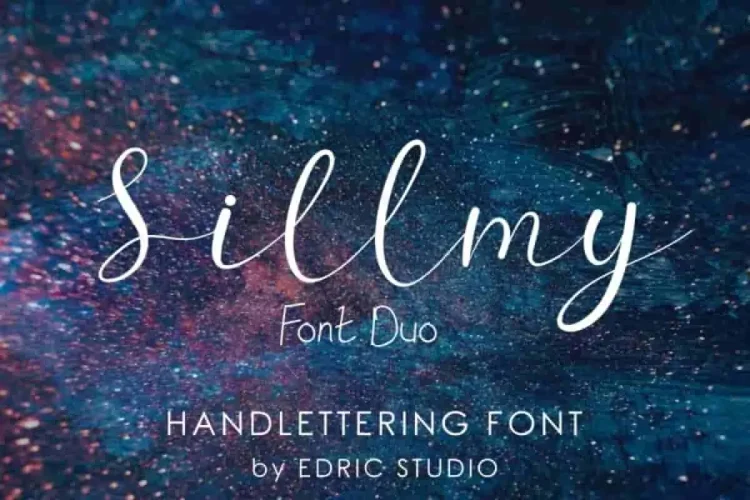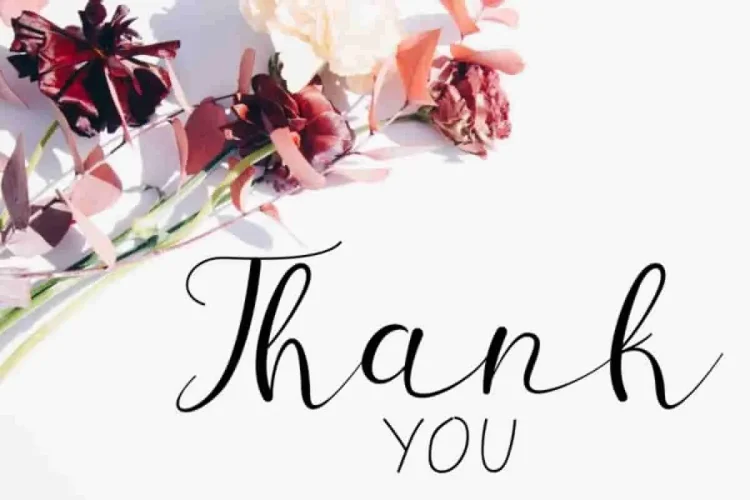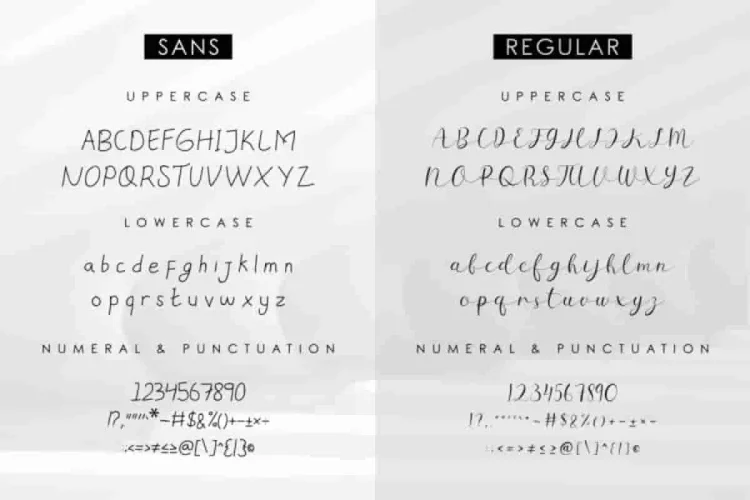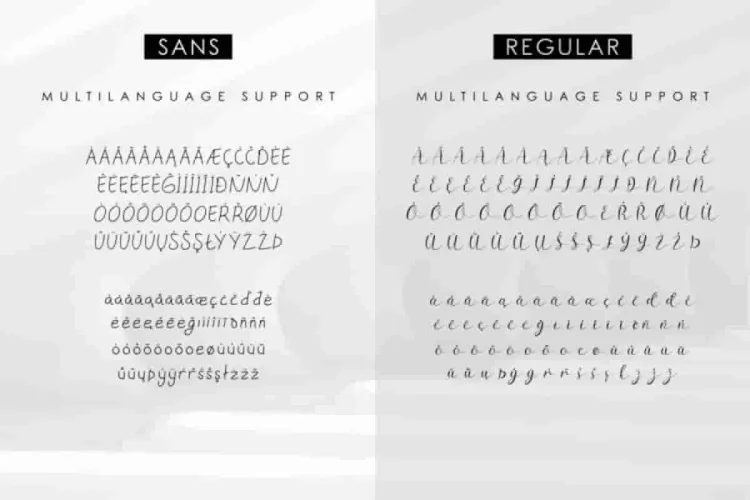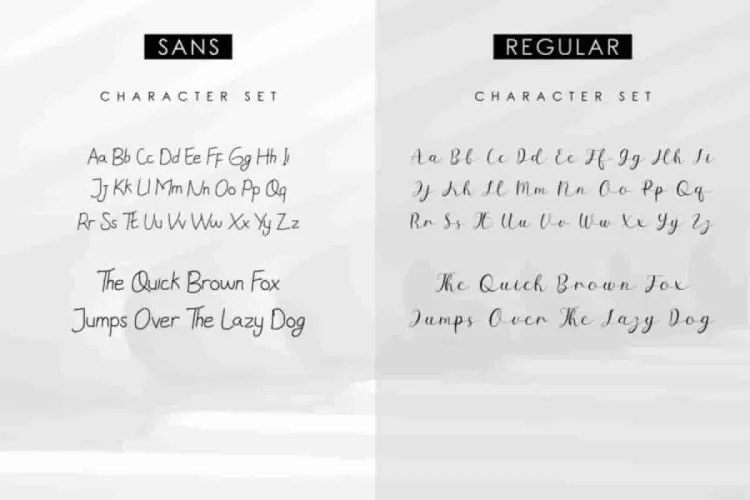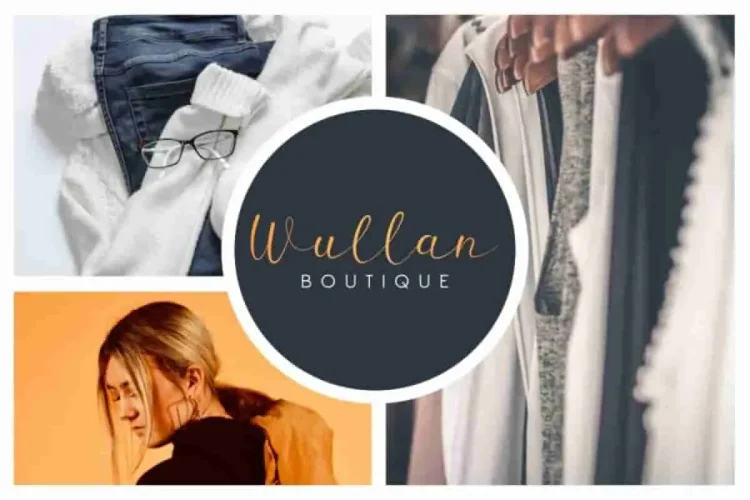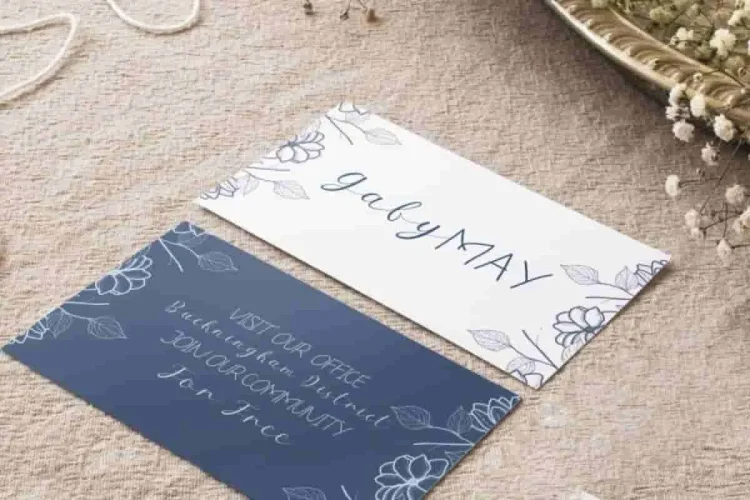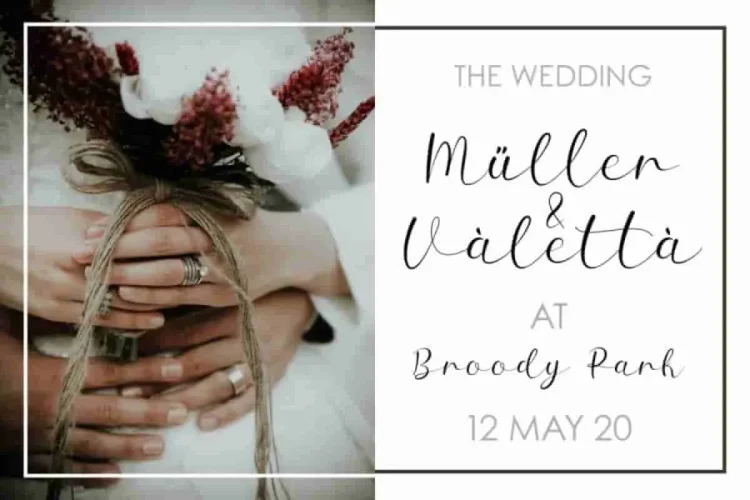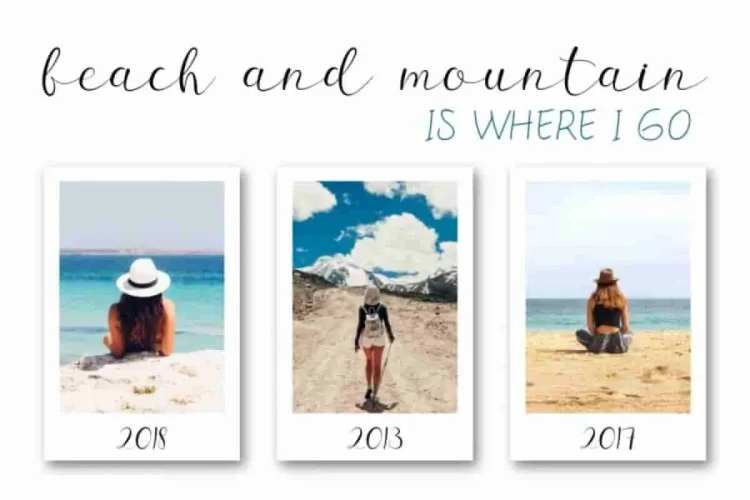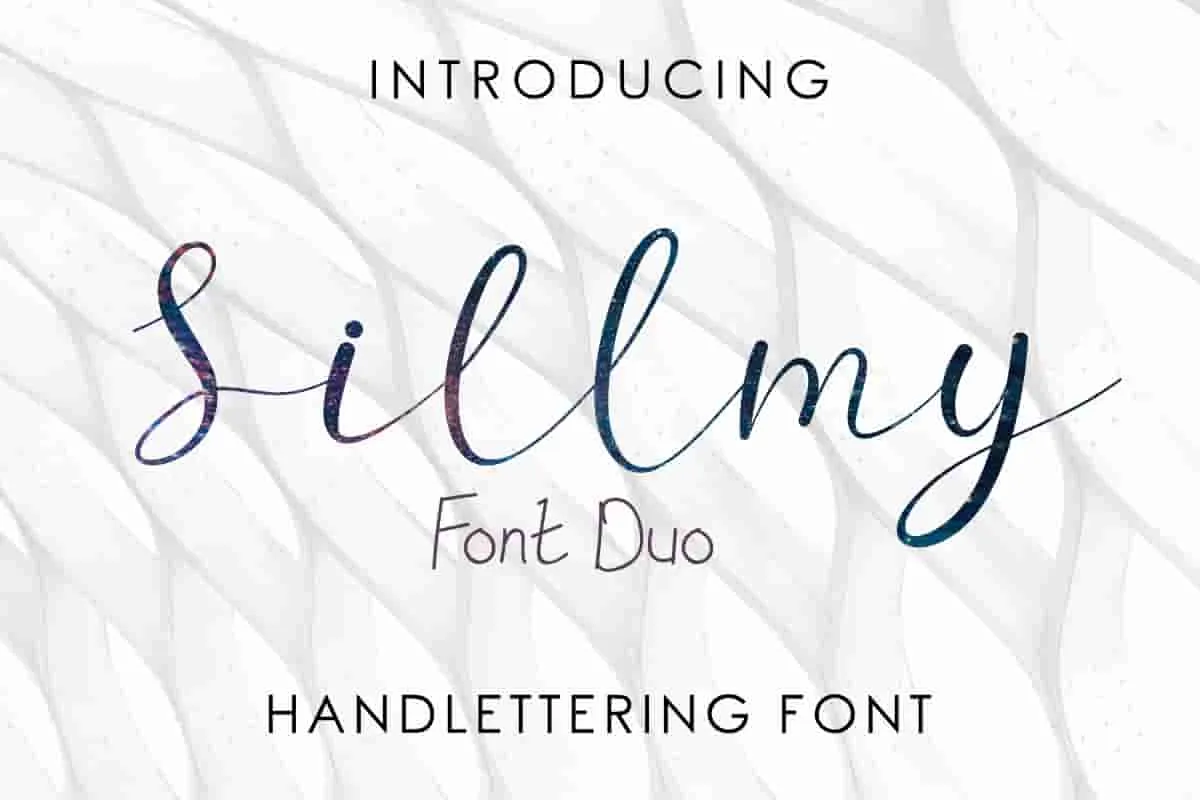
Sillmy Handwriting Caligraphy Font Duo
Please meet our latest font : Sillmy Font!
Sillmy is a font family consist of two different styles: Handwriting caligraphy and sans display. Sillmy has a unique glyphs. Whether you’re aiming for something modern and bold or soft and graceful, this duo has it all.
With its smooth handwritten curves and refined sans characters, Sillmy lets you explore unlimited creative possibilities. You can mix and match both fonts to create standout branding, eye-catching headers, or stylish logos.
Moreover, Sillmy is incredibly versatile. You can use it across a wide range of industries: wedding invitations, personal branding, fashion, law firms, photography, makeup artists, travel agencies, cafes, and more. It also fits perfectly on flyers, brochures, quotes, social media posts, and promotional materials. Need to design a professional signature or stylish product packaging? Sillmy handles it effortlessly.
So, if you’re looking for a Calligraphy font that’s graceful, flexible, and professional – Sillmy is the perfect choice.